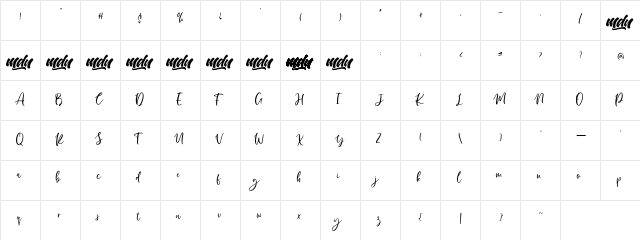
Manilla Script-FREE PERSONAL Regular
Design Context for Manilla Script-FREE PERSONAL Typeface
Manilla Script-FREE PERSONAL flows with the natural rhythm of handwritten lettering, making it ideal for designs that call for warmth and personal expression.
Font Pairing: Combine Manilla Script-FREE PERSONAL with a simple geometric sans for maximum contrast — the tension between flowing curves and clean structure is a classic typographic pairing.
Pro Tip: Use Manilla Script-FREE PERSONAL for short runs of text — names, titles, or taglines. Extended body copy in script faces tires the eye quickly.